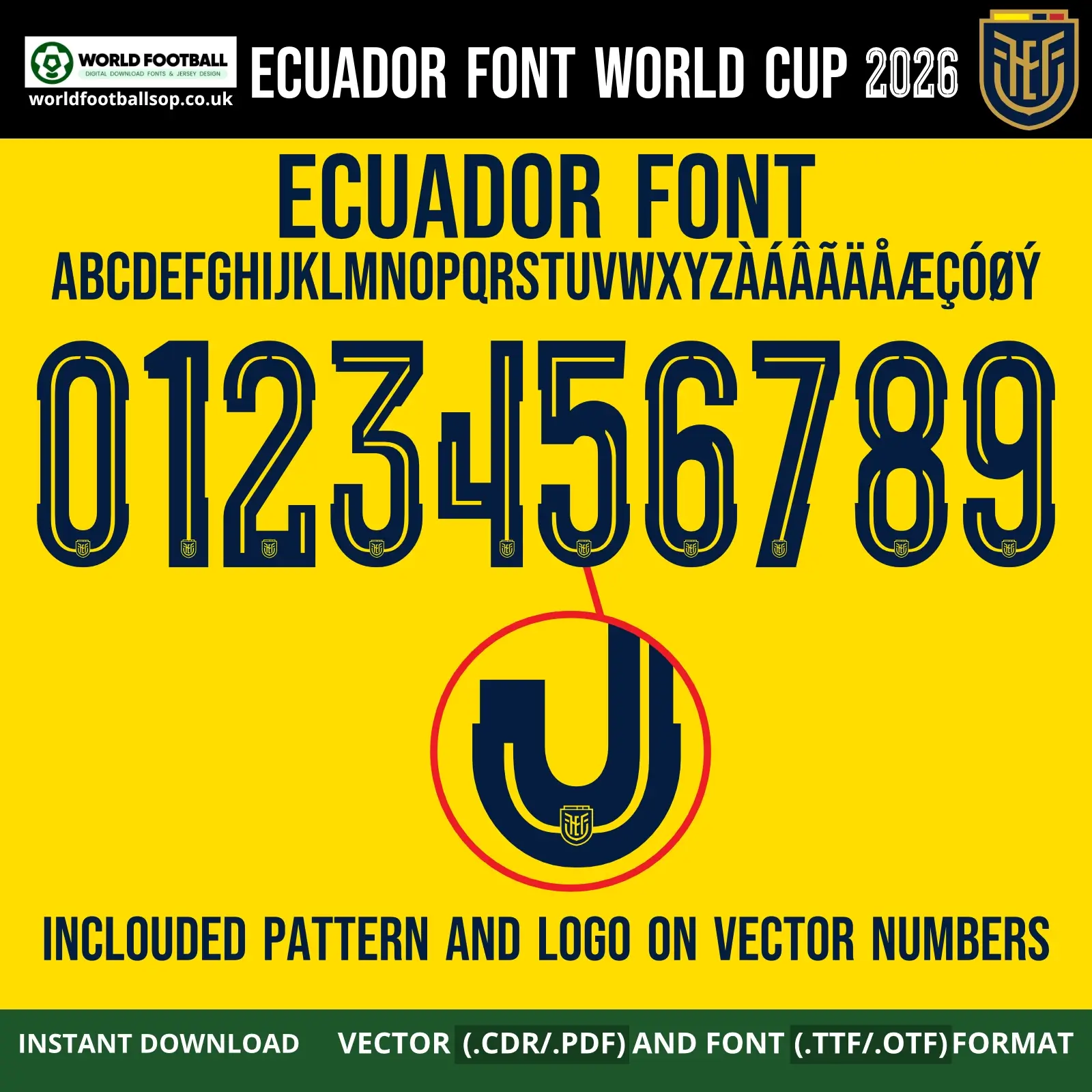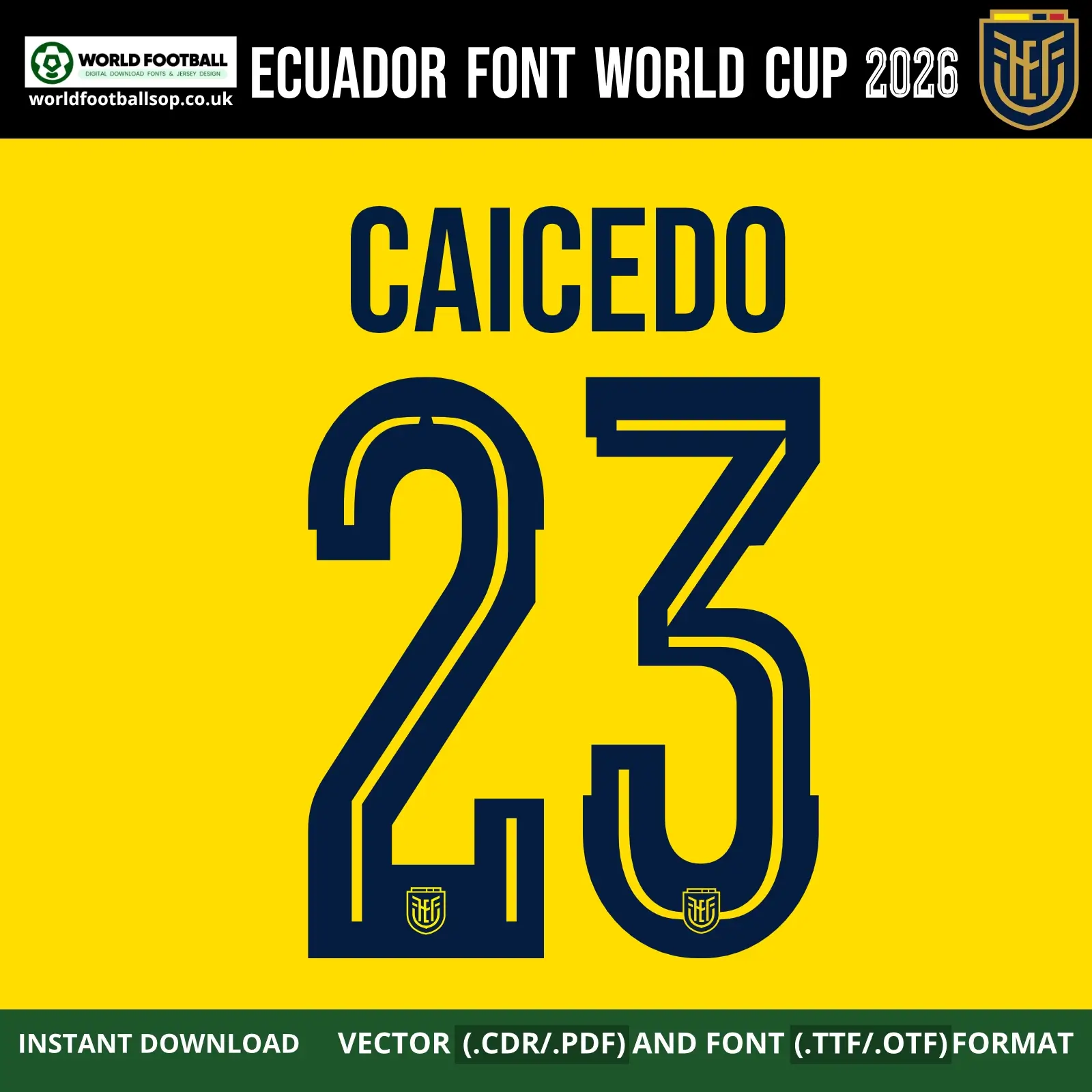
Ecuador Font World Cup 2026 – La Tri Jersey Typography
The Ecuador Font World Cup 2026 pack lets you recreate the bold, modern lettering used on Ecuador’s kits at the 2026 tournament. Designed around La Tri’s distinctive look, the numbers are tall and strong with clean edges and subtle internal cuts, giving them great visibility on both the yellow home shirt and the darker away kit. Matching letters follow the same style so every nameset – from famous players to your own name – looks like it belongs on an official World Cup jersey.
This font is perfect for custom jerseys with Caicedo 23 Nameset, designers and print shops who want a professional Ecuador style for jerseys, posters or social‑media graphics. The design balances a contemporary football feel with details that reference the country’s colours and identity, making it instantly recognizable on any design.
Full uppercase A-Z alphabet plus key accented characters used in Spanish names (Á, É, Í, Ó, Ú, Ü, Ñ, etc.)
Numbers 0-9 in the World Cup 2026 Ecuador style, ready for back, front and short printing
Design highlights
World Cup‑inspired: Built to match the typography style seen on Ecuador’s 2026 World Cup kits, with strong shapes and clear spacing for maximum legibility.
Works on both kits: Looks great on the yellow home shirt and on darker away/third designs thanks to balanced stroke width and outline options.